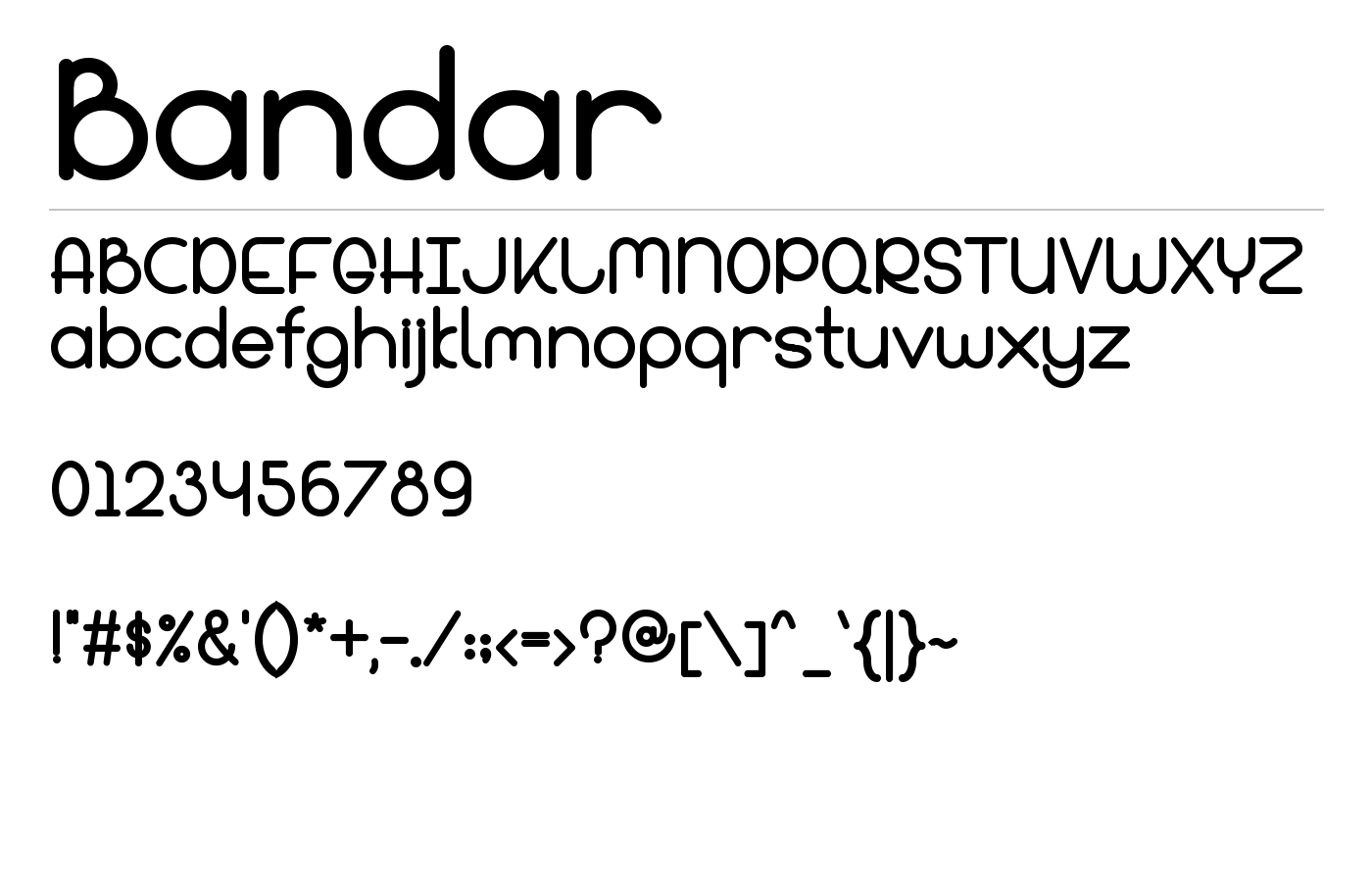
Bandar is a playful and modern sans serif font characterized by its rounded strokes, consistent weight, and high x-height, which enhance readability. Its unique, slightly quirky letterforms, such as the distinctive uppercase "Q" and single-story "a," bring a friendly and approachable feel, making it ideal for creative branding, logos, and casual editorial projects. This font works well where a fresh, informal tone is desired, delivering both clarity and personality.
Bandar Font